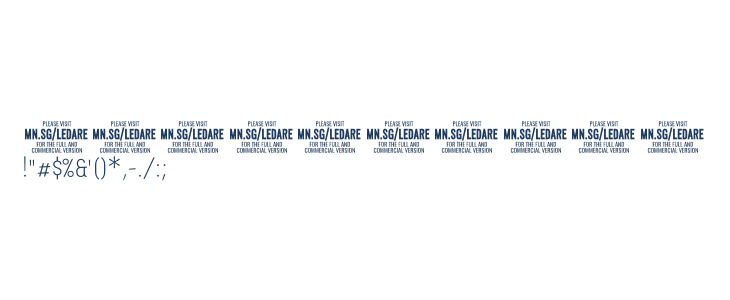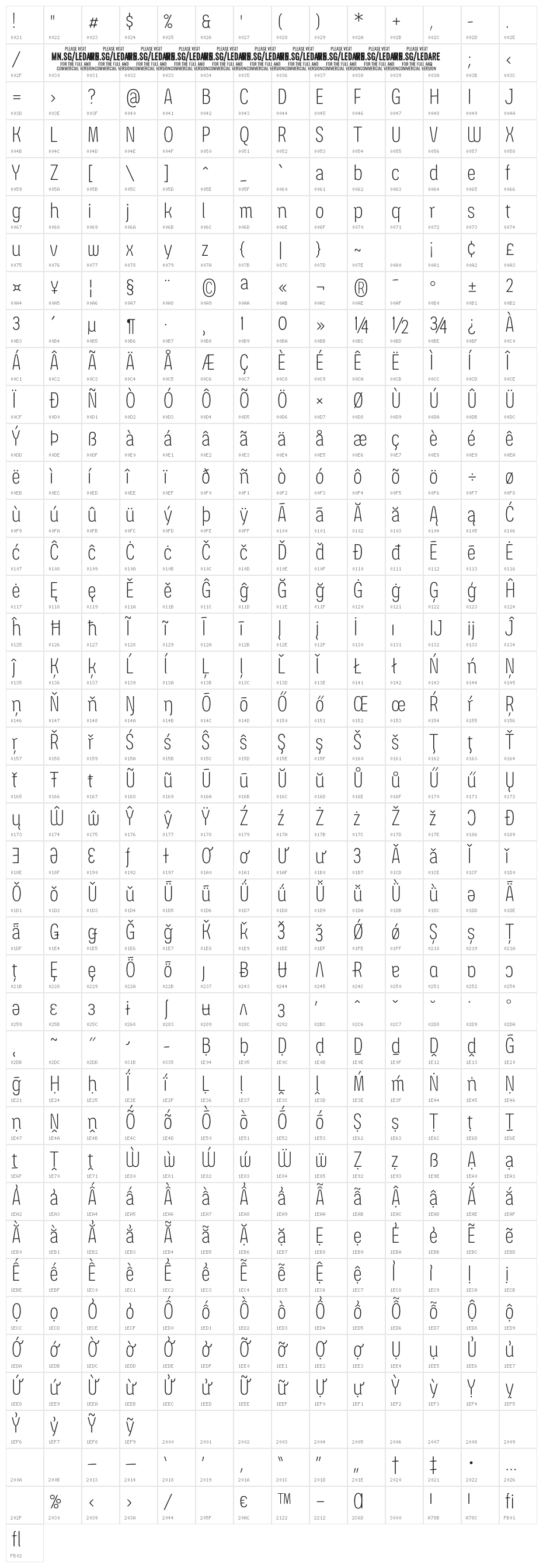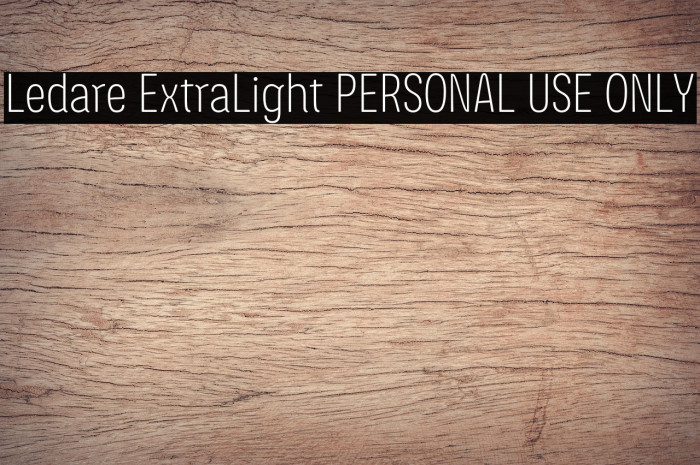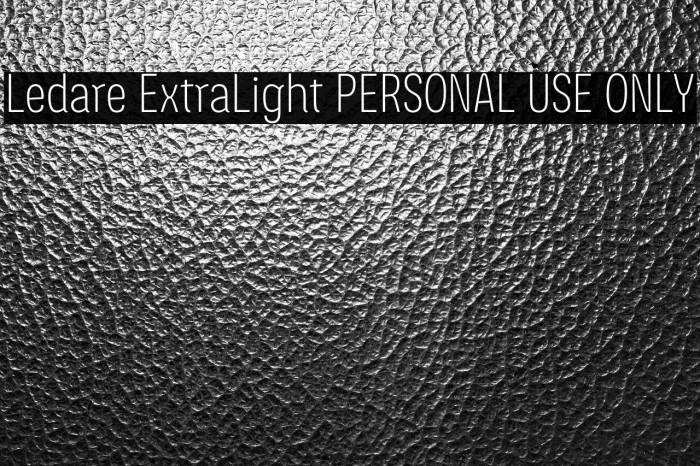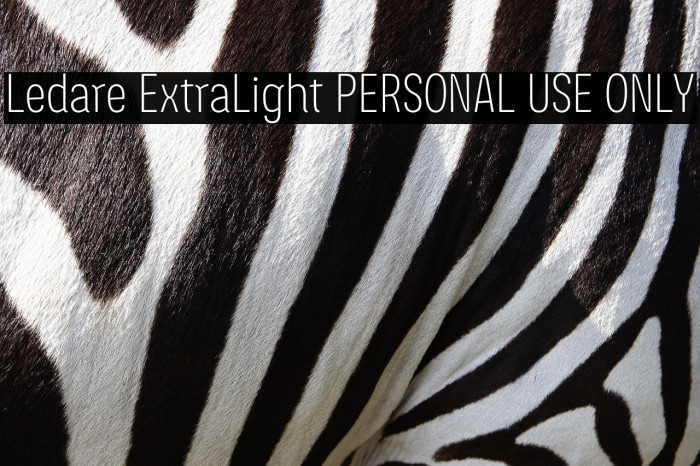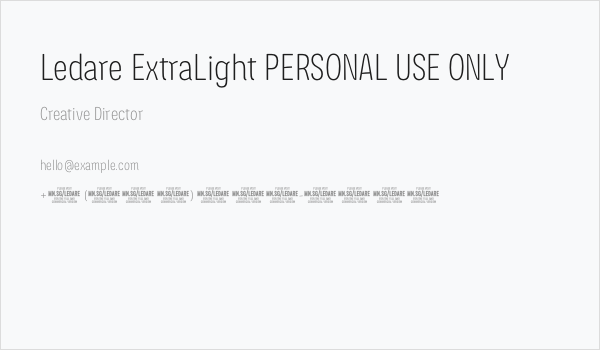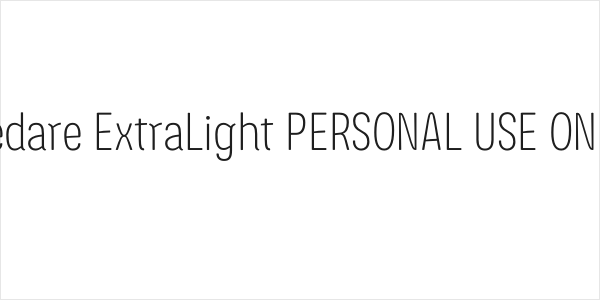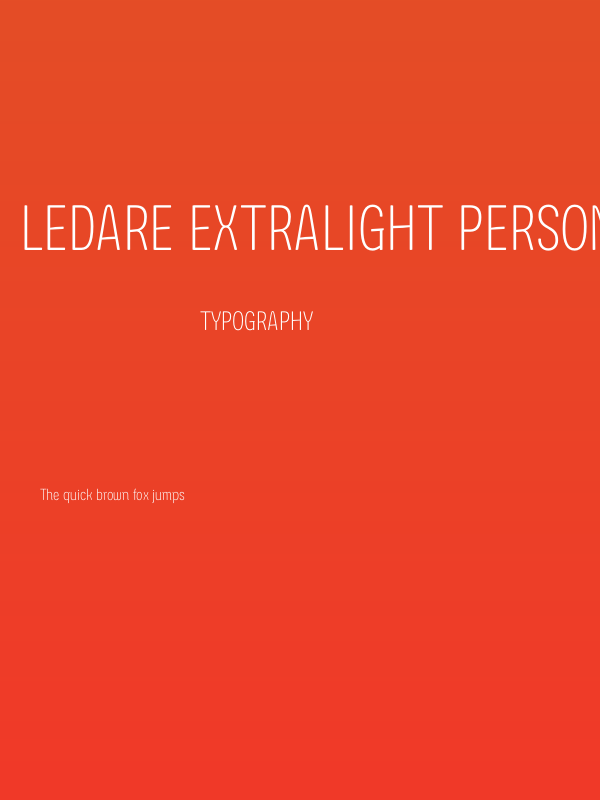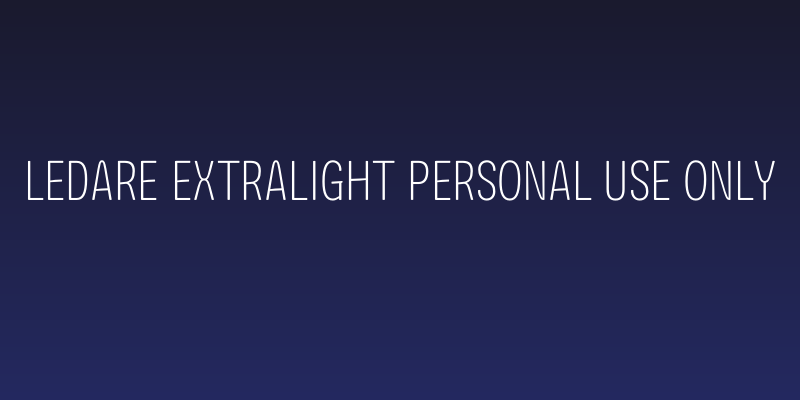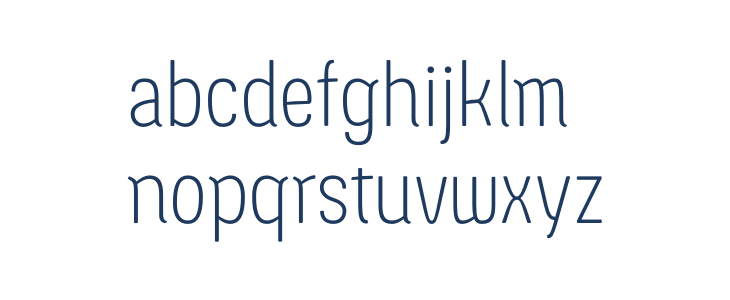
Ledare ExtraLight PERSONAL USE ONLY Font
Ledare ExtraLight PERSONAL USE ONLY Description
This font exhibits a sleek and modern design with an extra light weight, providing a clean and minimalist aesthetic. The characters are tall and narrow, contributing to a condensed appearance that maintains readability. The uppercase and lowercase letters are well-proportioned, with a consistent stroke width that enhances its uniformity. The font includes a full set of numerals and a variety of special characters, making it versatile for various applications. Its simplicity and elegance make it suitable for contemporary design projects.
| Proposed Projects | Ideal for modern branding, minimalist posters, elegant invitations, and digital interfaces. |